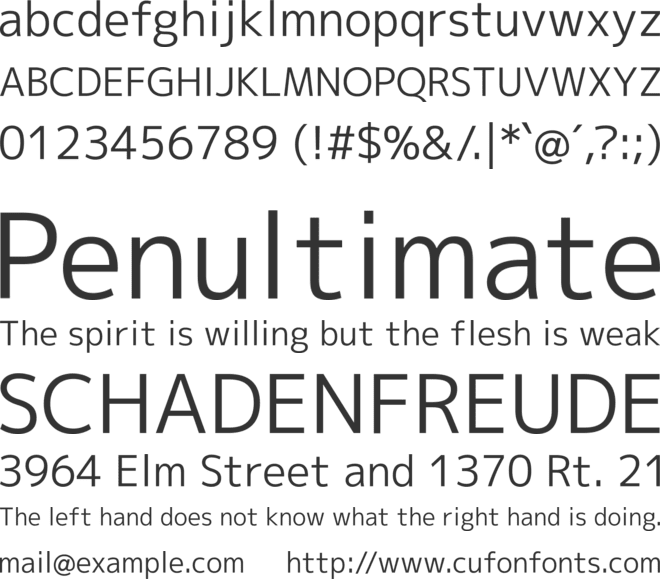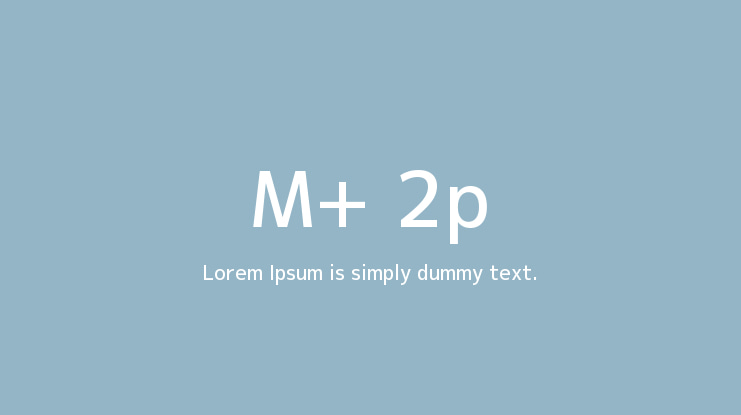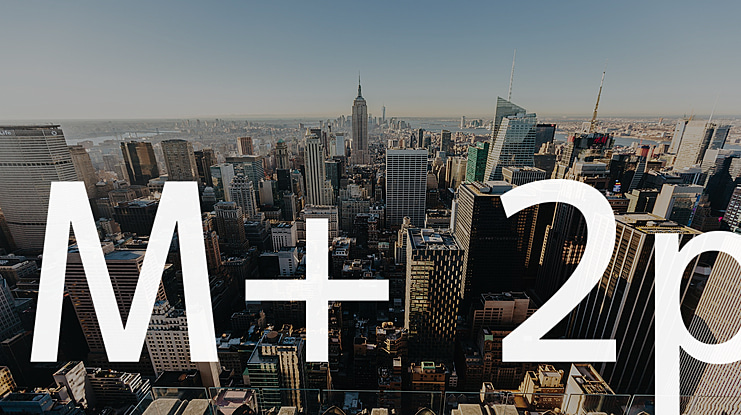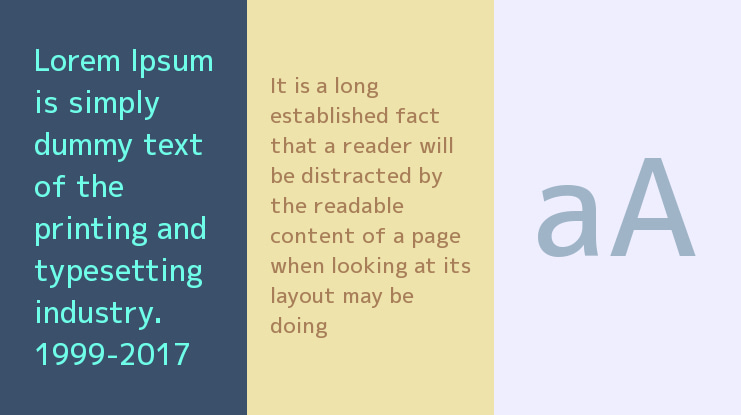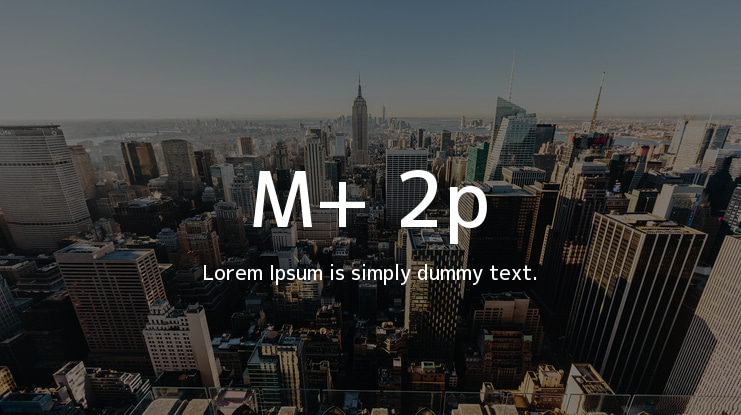
M+ 2p Font Family
The combination of fixed-fullwidth M+ 2 for Japanese and proportional M+ P Type-2 for alphabets. They are 7 weights from Thin to Black.